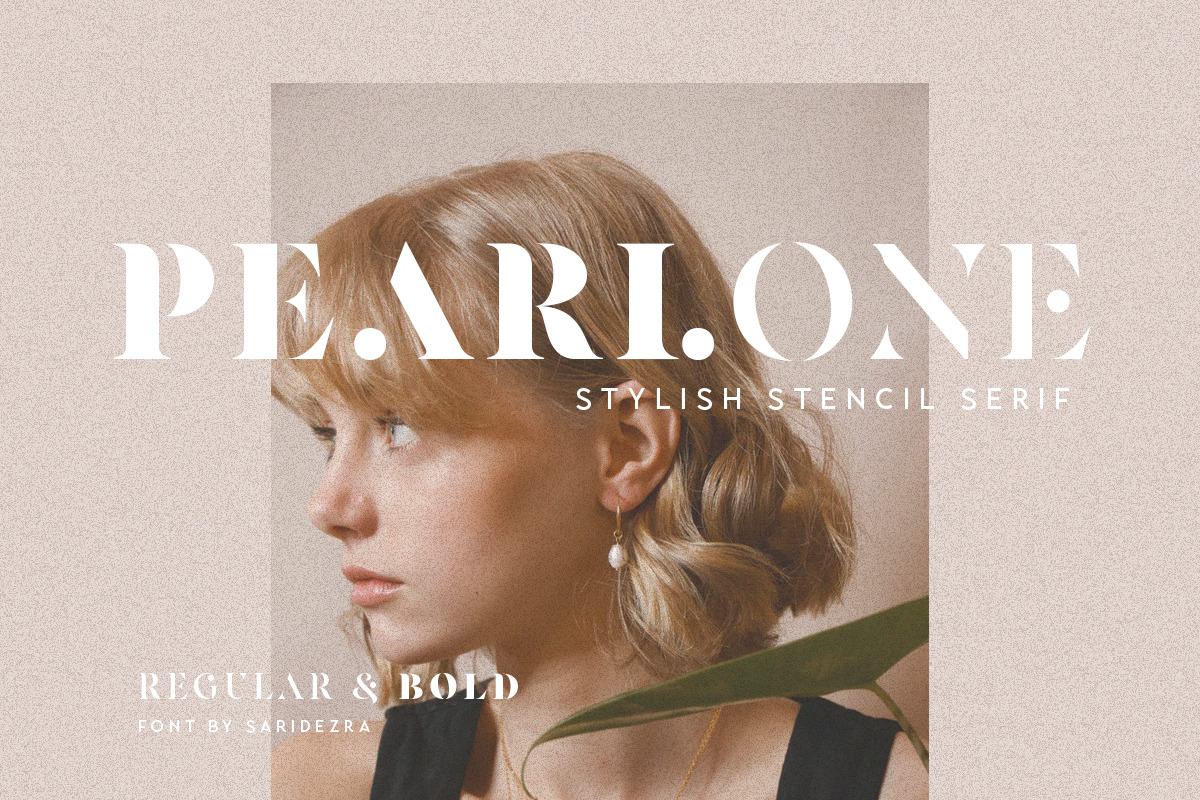
Pearlone - Stylish Stencil Serif Free Download
Pearlone Font - Stylish Stencil Serif Free Download
Elevate your designs with Pearlone Font - Stylish Stencil Serif Free Download. This unique serif font features a modern stencil design, offering both boldness and sophistication. Perfect for creating impactful logos, posters, branding, and editorial design with a strong, stylish, and contemporary aesthetic.
Pearlone combines classic serif elements with a striking stencil effect, giving your typography a distinctive edge. It includes uppercase and lowercase letters, numerals, punctuation, and multilingual support, providing versatility for a wide range of design projects.